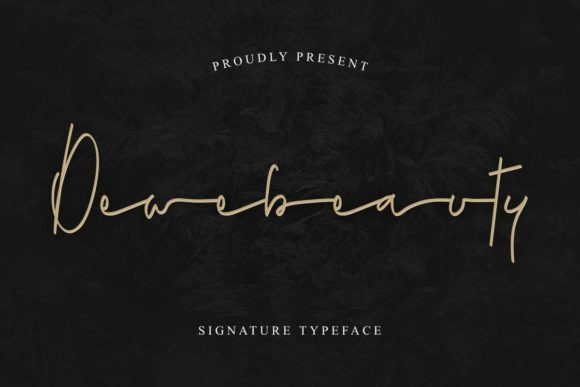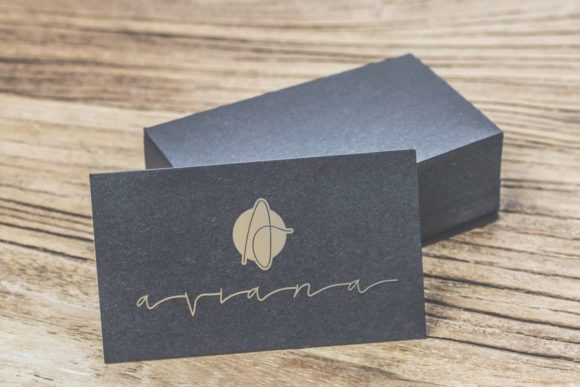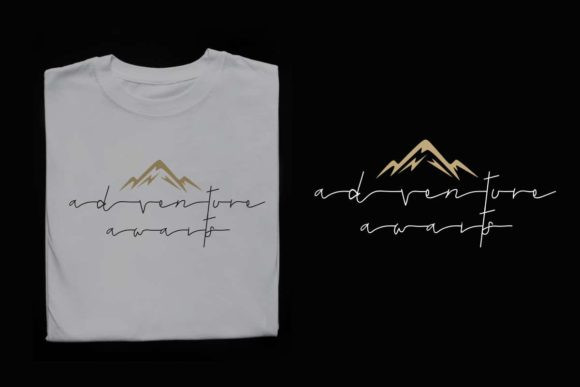
Dewebeauty Font
Dewebeauty simplifies elegance into one truly outstanding handwritten font. Use this gorgeous and unique font to bring any DIY project to life!